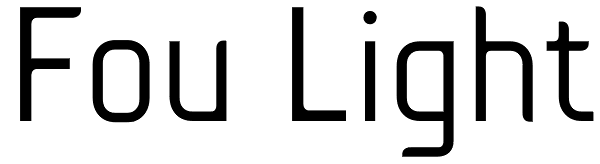
Fou Pro
The Fou typeface family was designed as an alternative to Trade Gothic condensed bold. During the design process of a normally wide font variant a system developed that responds to white space and changing proportions. Thus, round transitions become...